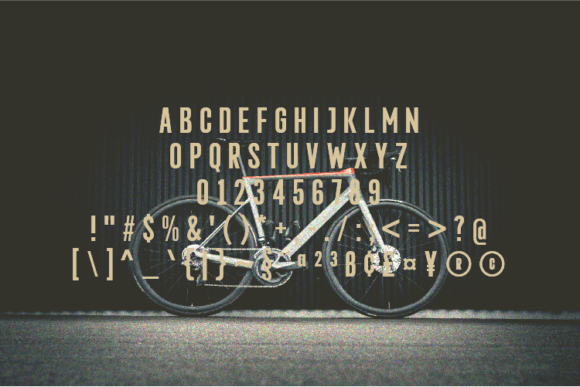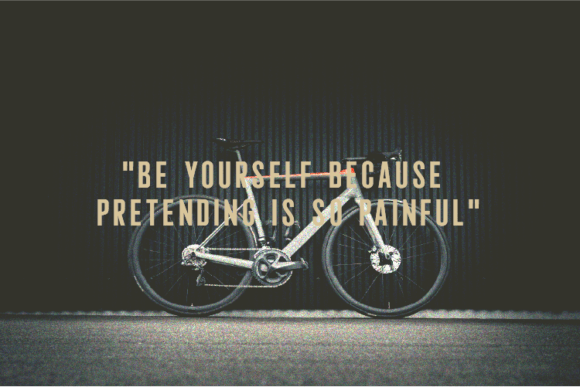
Introduction to Roadbike Font
Roadbike is an all-caps sans serif font that is so versatile and looks great in just about any context.
With smooth and clean lines and just a touch of contrast, this font works beautifully for logos, branding, and web headings .
Key Features of Roadbike Font
Why Choose Roadbike Font?